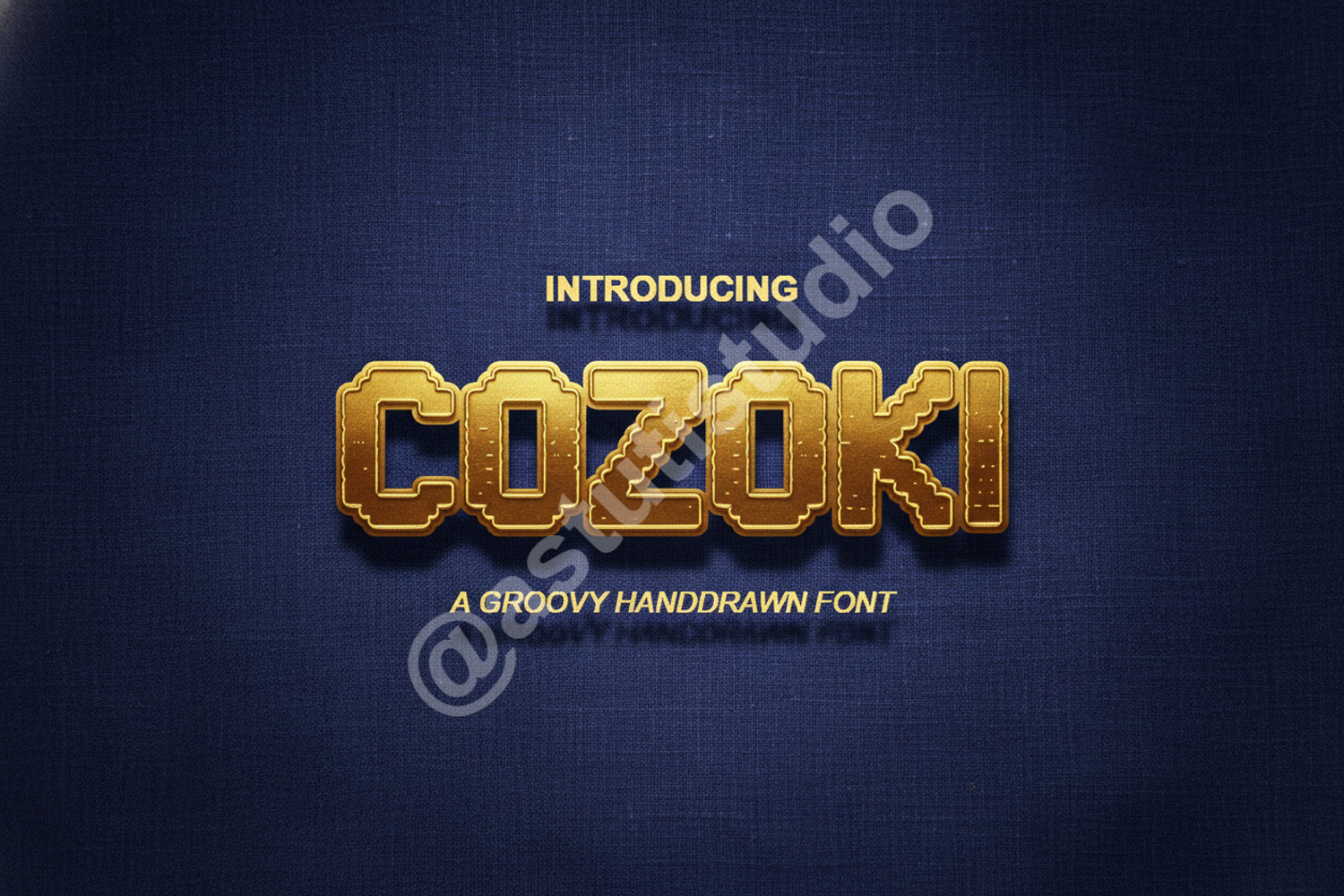
Cozoki - Modern Geometric Display Font
Cozoki
Cozoki is a premium display font that blends modern geometric precision with a clean, sophisticated aesthetic. Designed for designers who demand versatility and impact, this typeface brings a professional touch to any creative project. Whether you are crafting a sleek corporate identity or a bold editorial headline, Cozoki provides the perfect balance of style and readability.